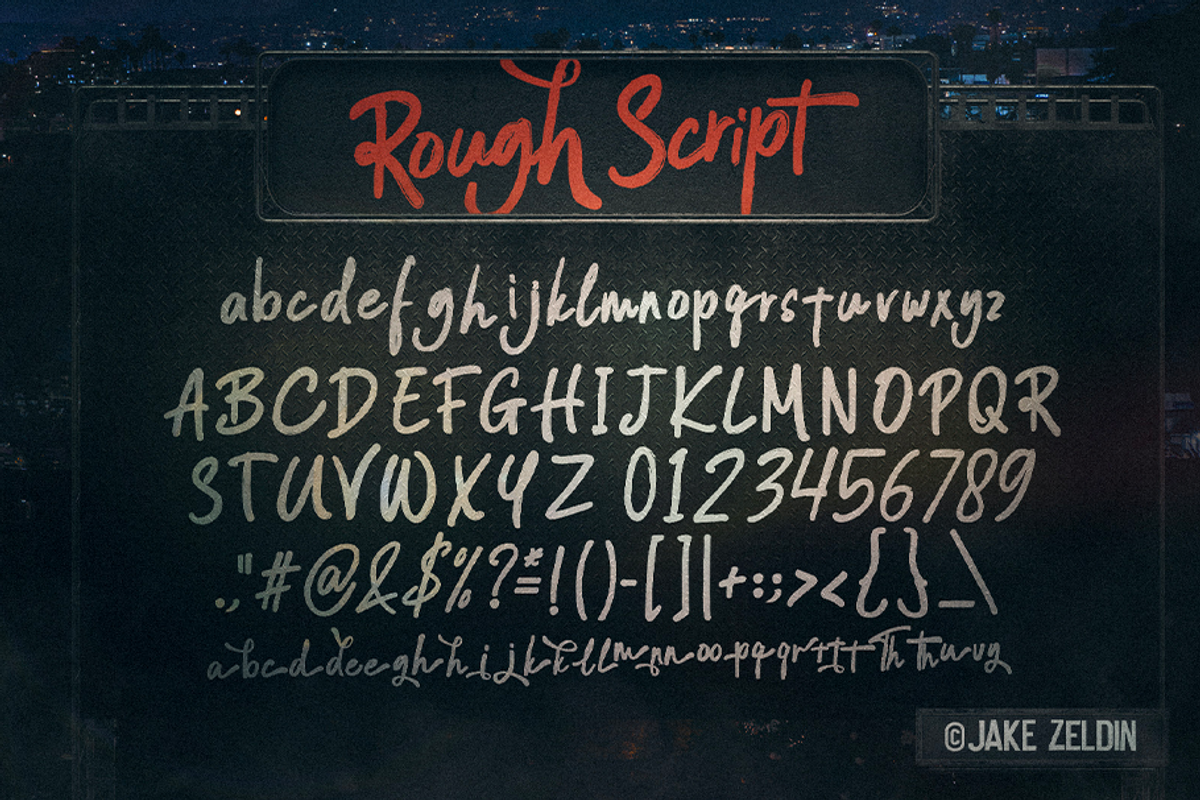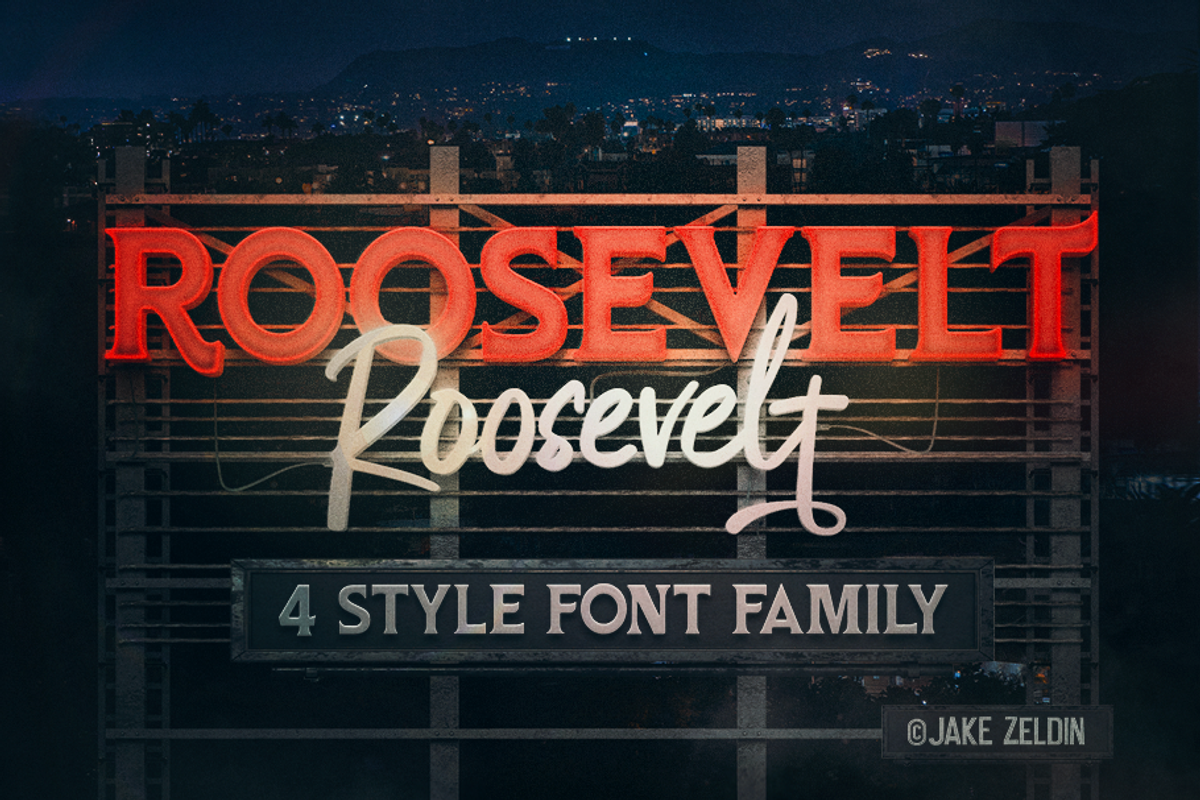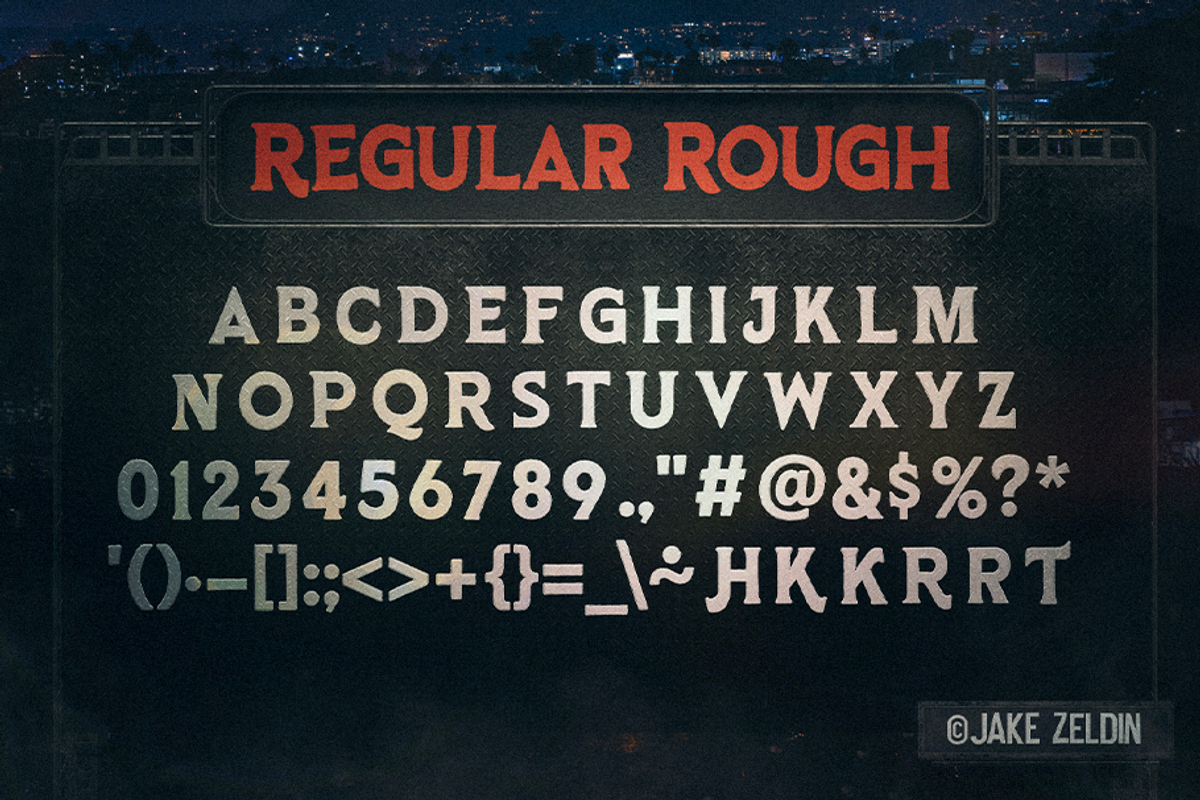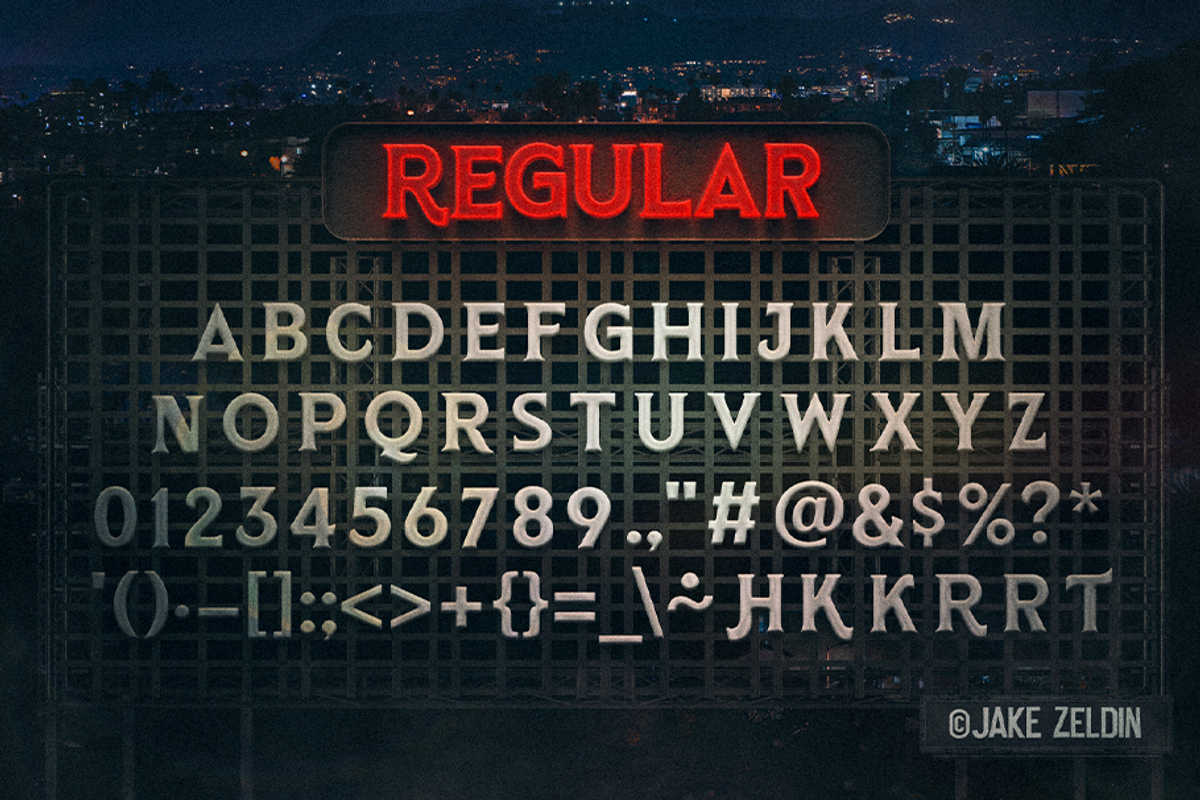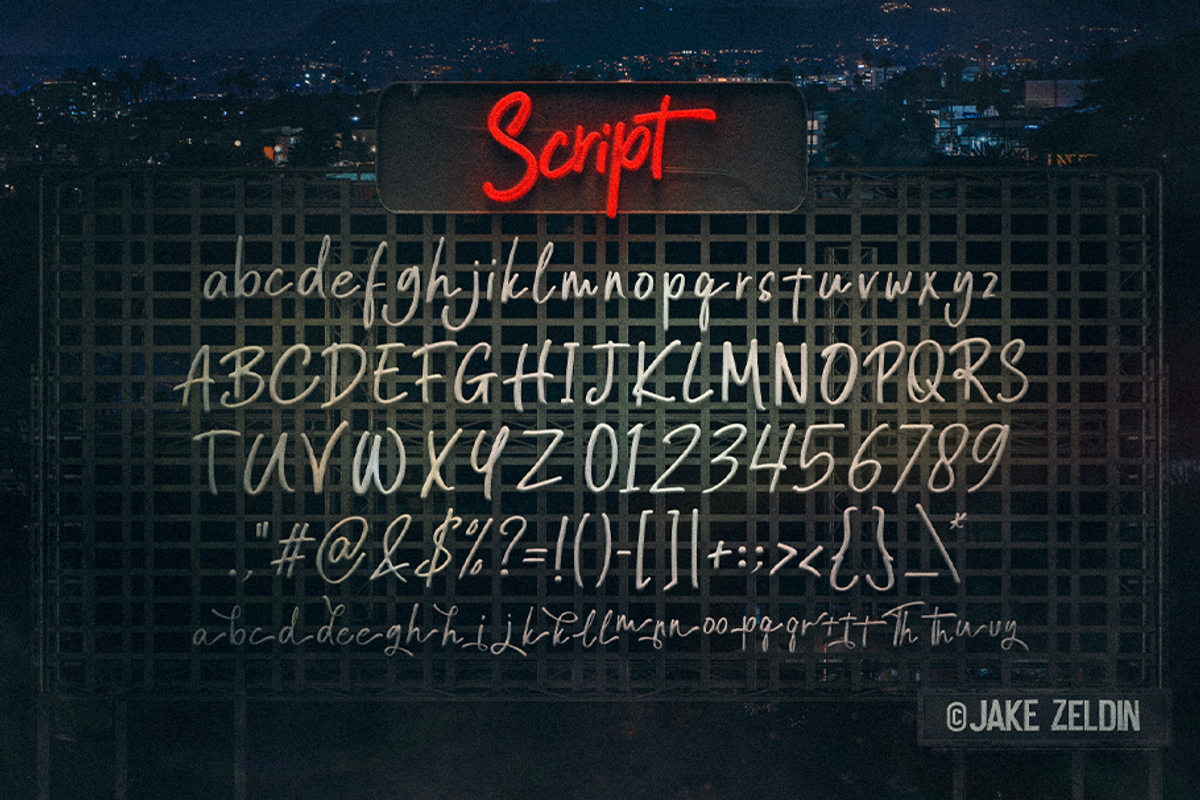
Roosevelt - Vintage 4 Font Family
Roosevelt vintage font family, with a carefully crafted font duo with 4 font styles. Roosevelt is perfect for logos, badges, posters, typography and any retro design and retro display type needs.
- 4 Fonts (Regular, Regular Rough, Script, Rough Script)